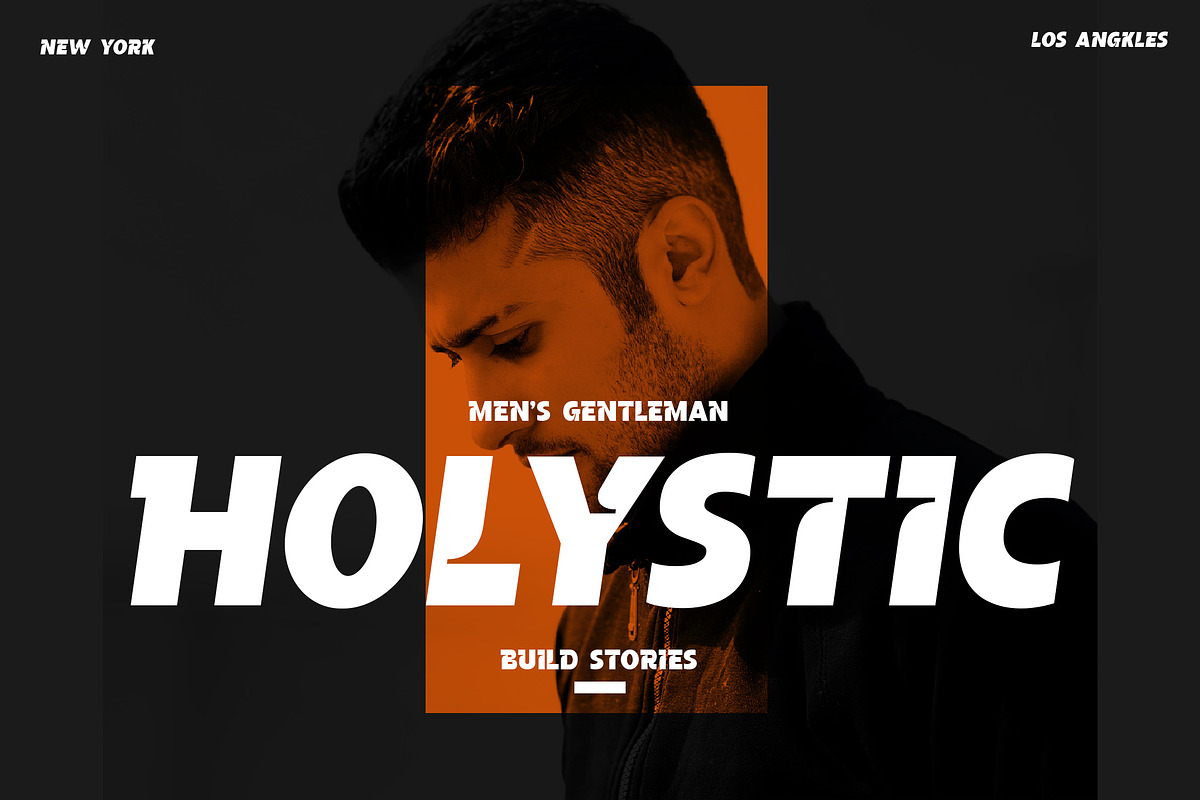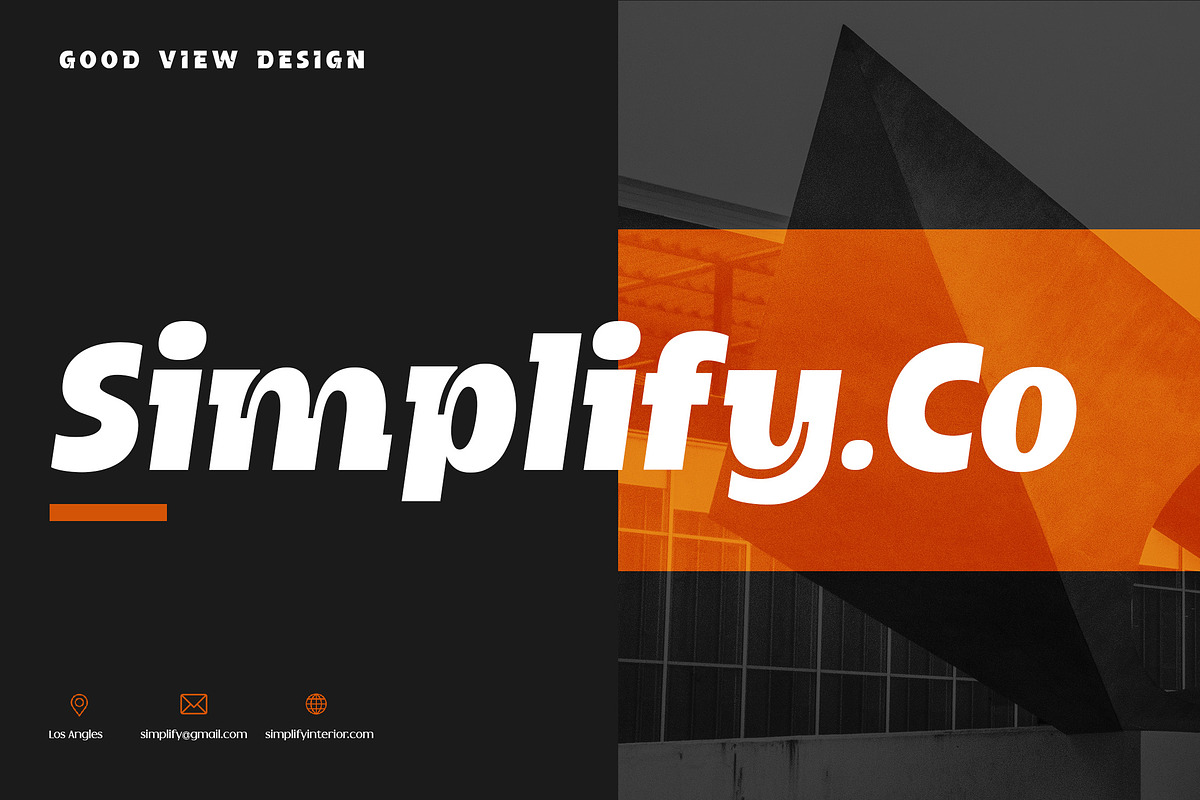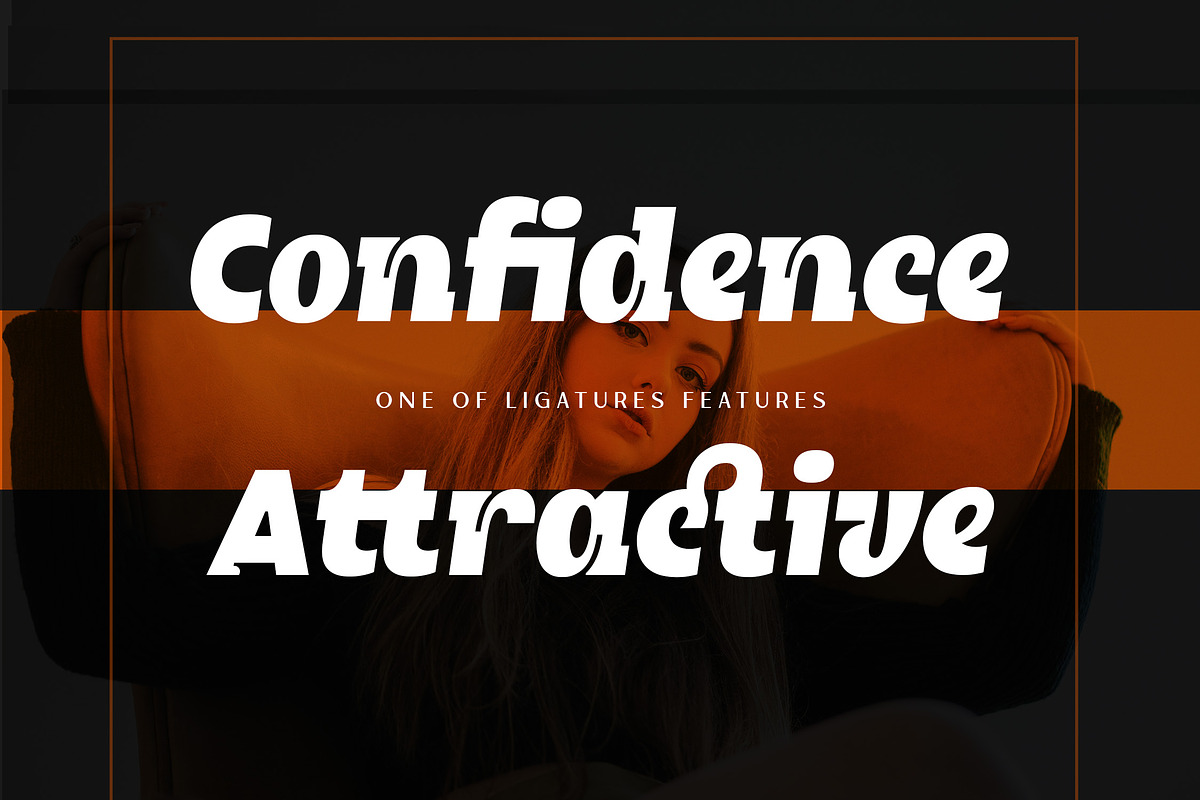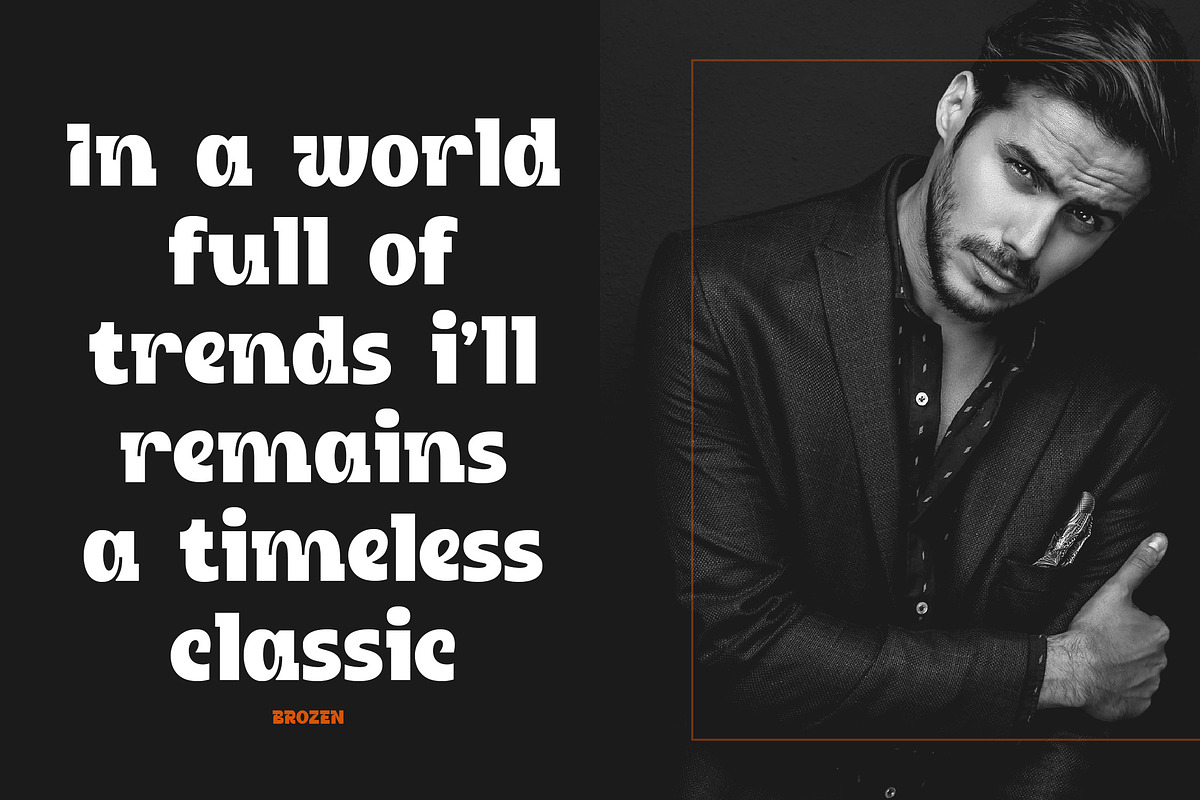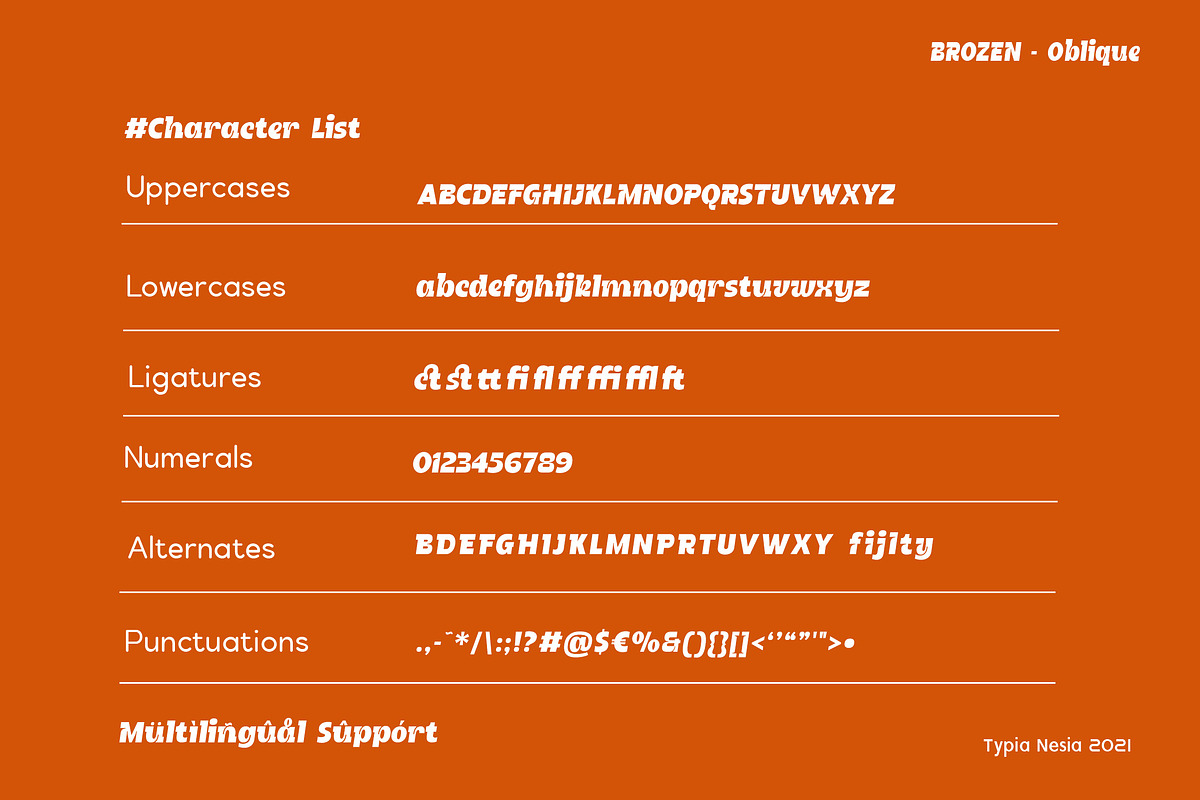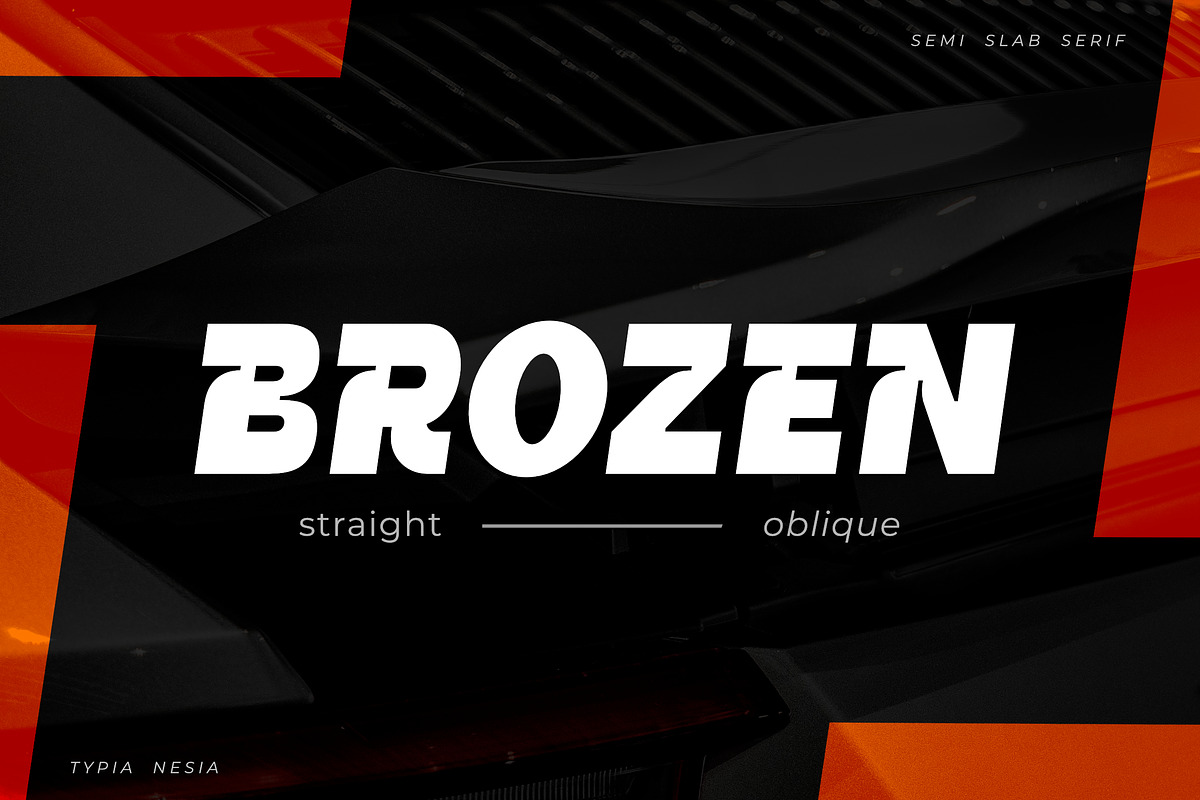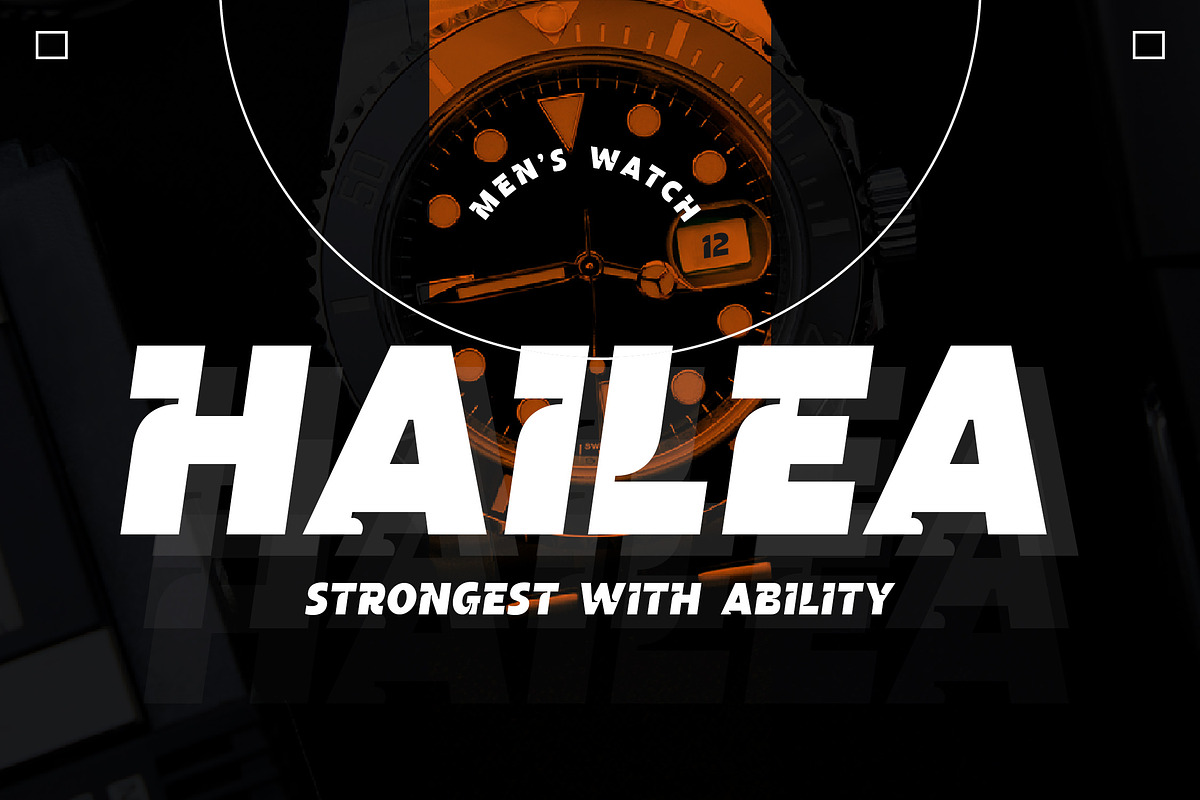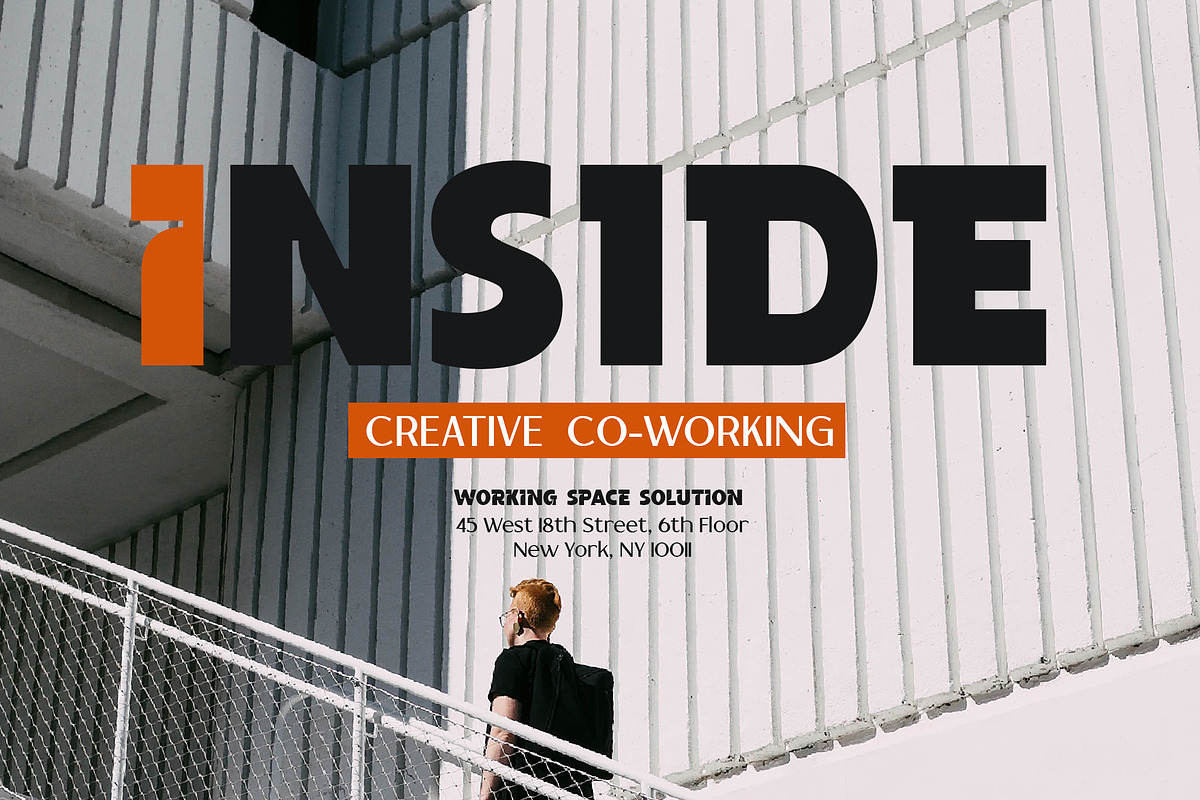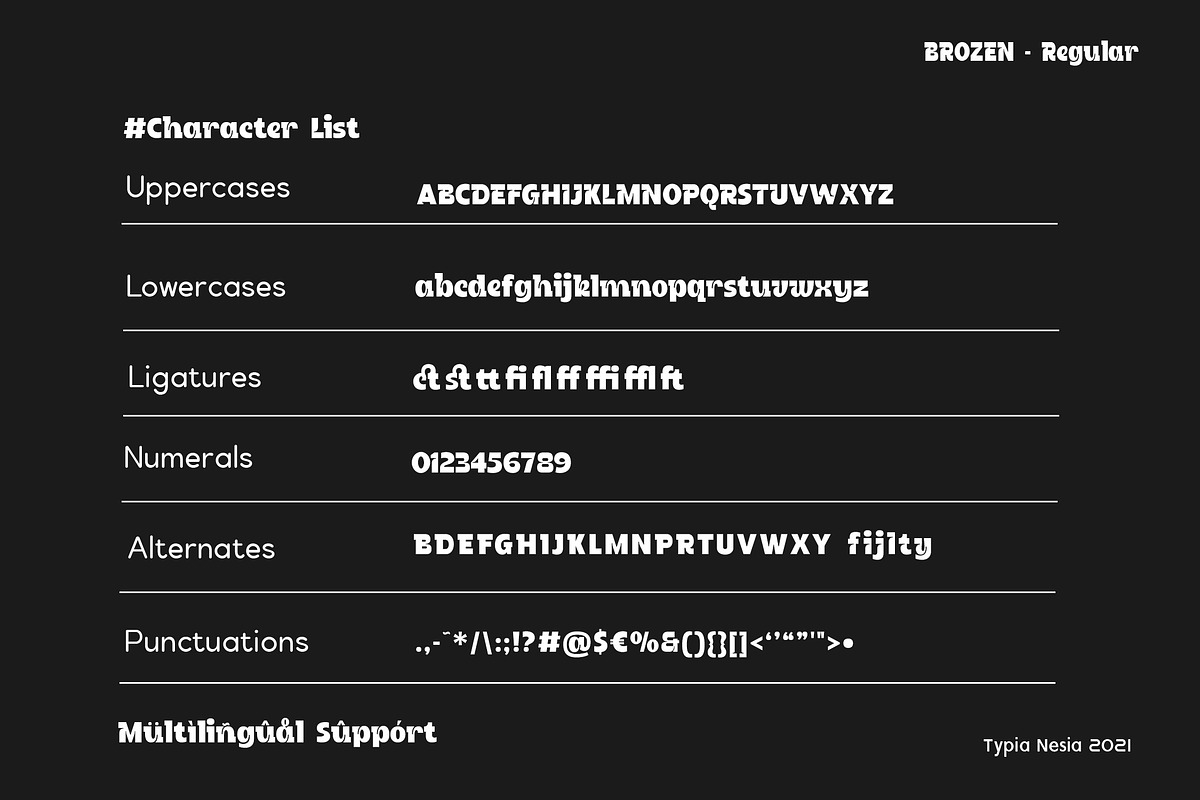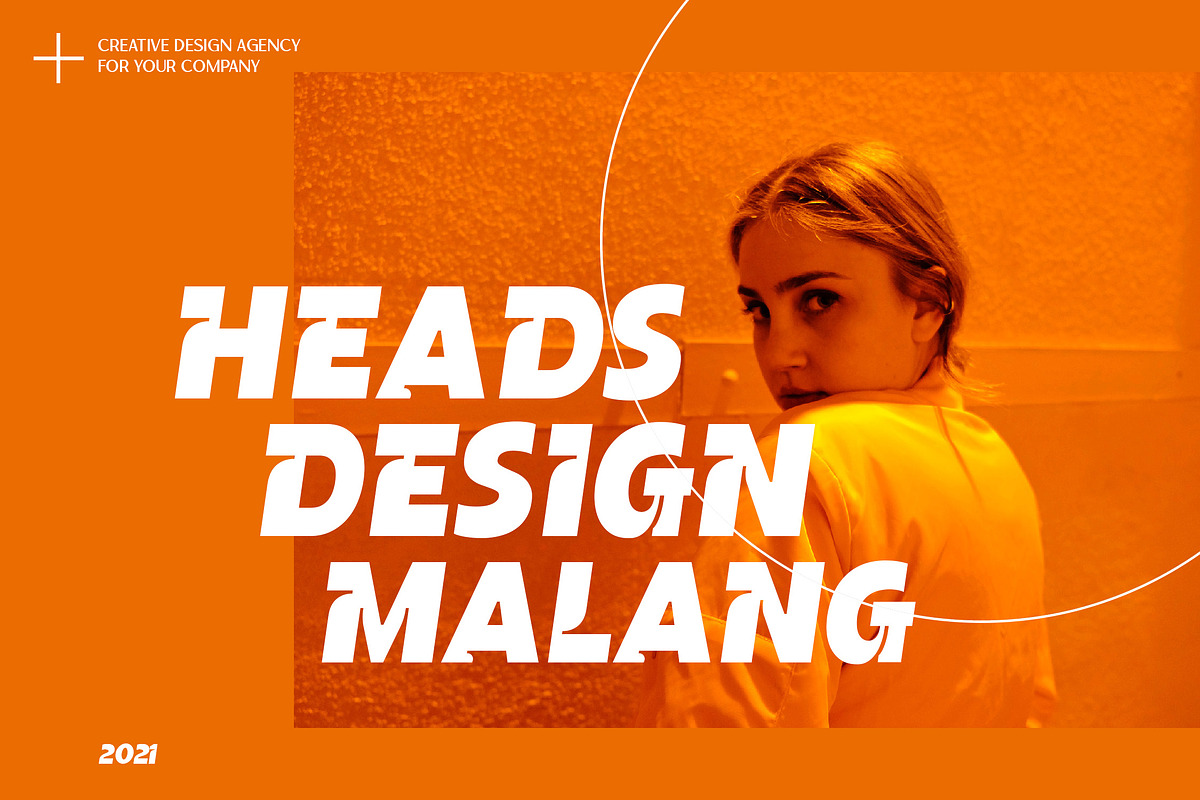
Brozen
Brozen Sport Racing Game Slab Serif - Bold Black Semi Slab Sans Serif
Brozen Sport Game Sans Serif Display Font is perfect for your up coming projects. Such as logo branding, editorial design, esport design, 80s retro design, game / gaming industry, sport racing, super car brand, esport branding, music poster, website design, modern advertising design, poster quote, book/cover title, special events and any more.